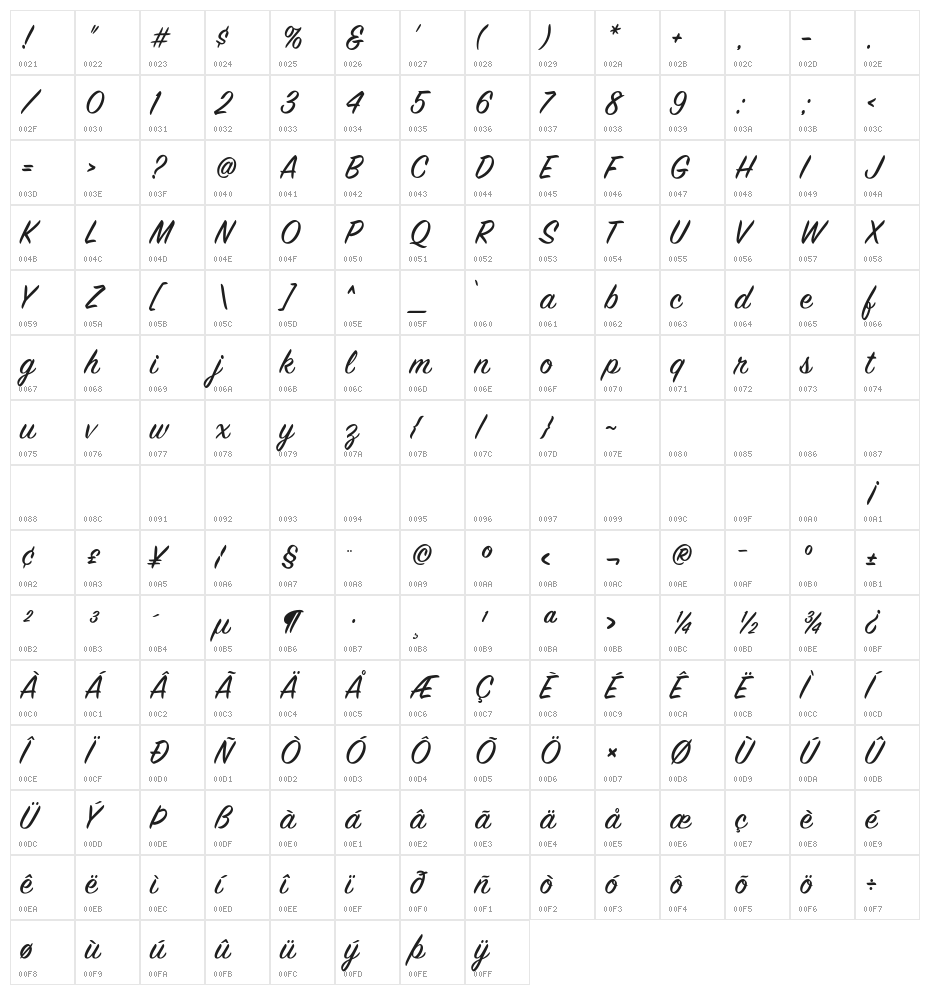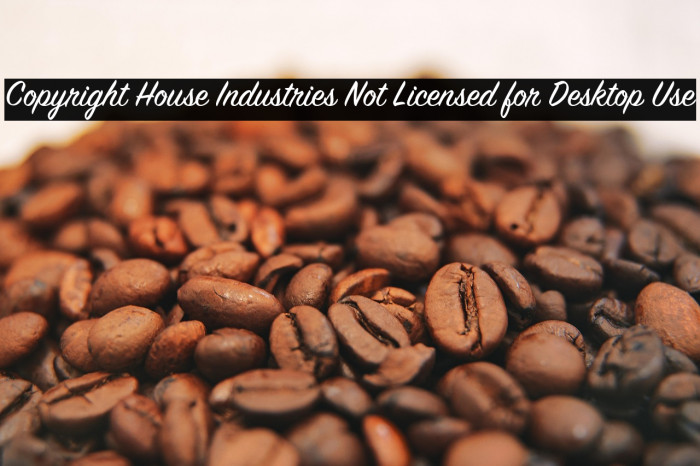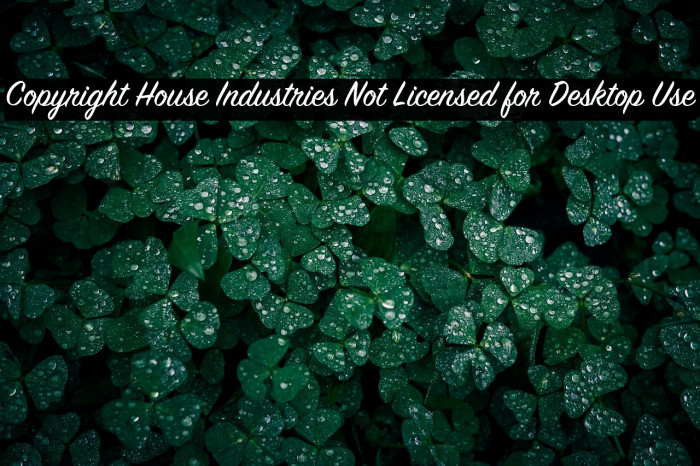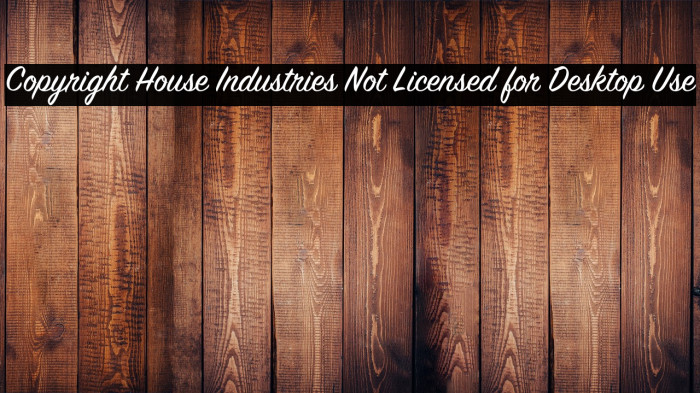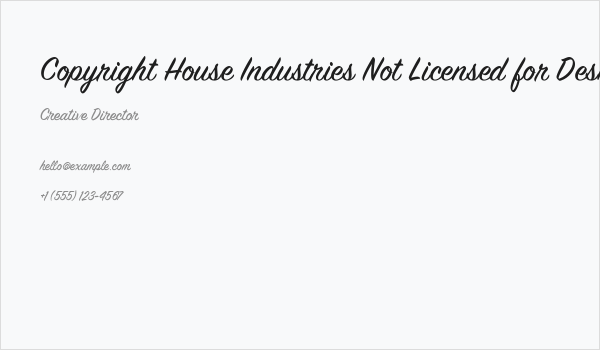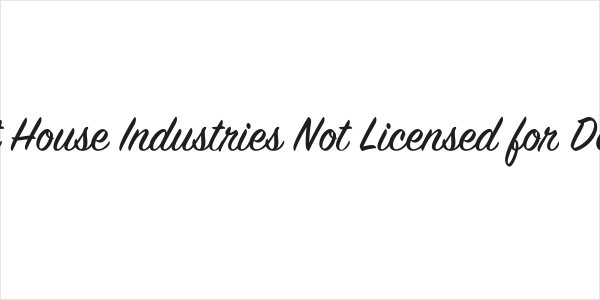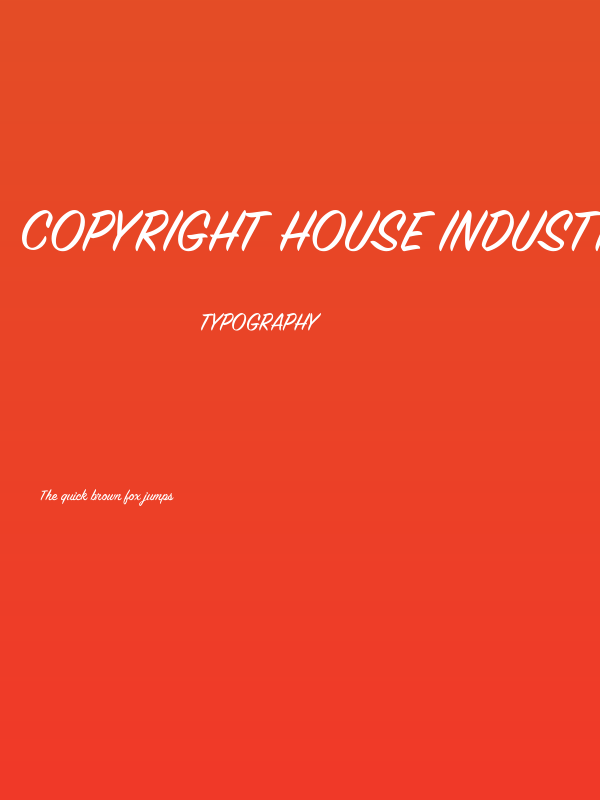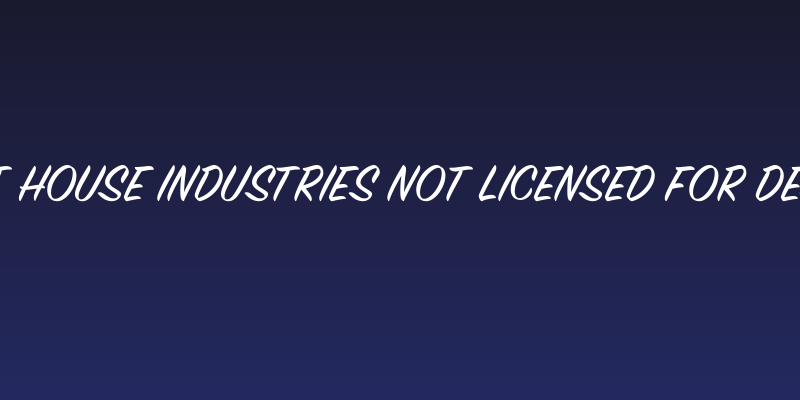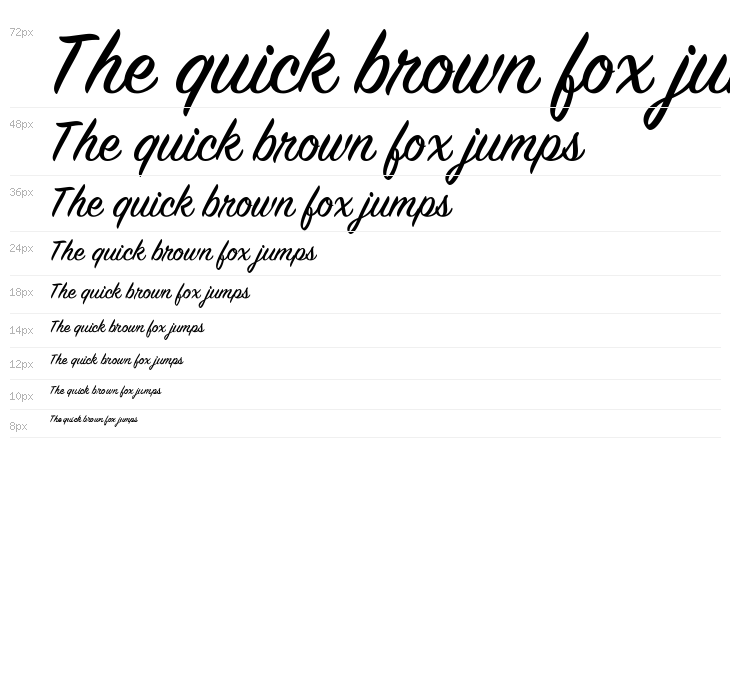
Copyright House Industries Not Licensed for Desktop Use Font
Copyright House Industries Not Licensed for Desktop Use Description
This font exudes a dynamic and energetic style with its cursive, handwritten appearance. The letters are fluid and connected, giving a sense of motion and elegance. The uppercase characters maintain a consistent height, while the lowercase letters have a playful bounce, adding to the font's lively character. The numerals are clear and maintain the same flowing style, ensuring readability. Special characters are well-integrated, matching the overall aesthetic. This font is perfect for projects that require a personal touch or a sense of sophistication.